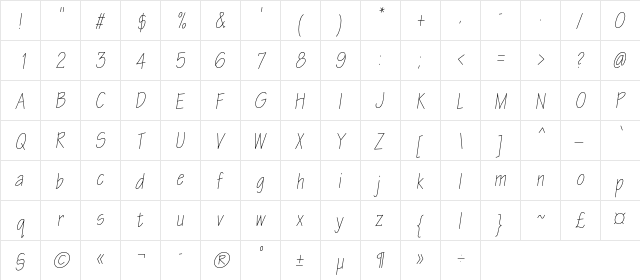
EskizTwo-CondensedLightOblique Regular Font Preview
Design Context for EskizTwo-CondensedLightOblique Typeface
EskizTwo-CondensedLightOblique is a composed and adaptable typeface that performs quietly and consistently across a wide range of design contexts. Its italic angle brings a sense of urgency and motion to the letterforms. The delicate stroke weight brings airiness and refinement to layouts. Its narrow stance lets it pack a punch even in space-constrained designs.
Pro Tip: Try EskizTwo-CondensedLightOblique for annotation and caption copy alongside an upright companion — the contrast in angle creates a dynamic but ordered typographic system.